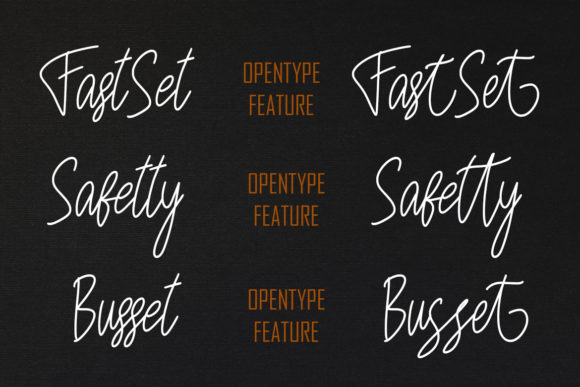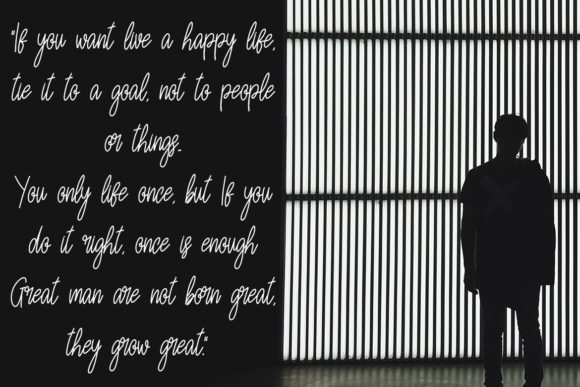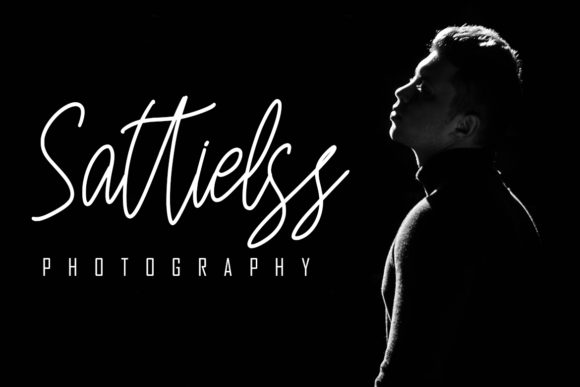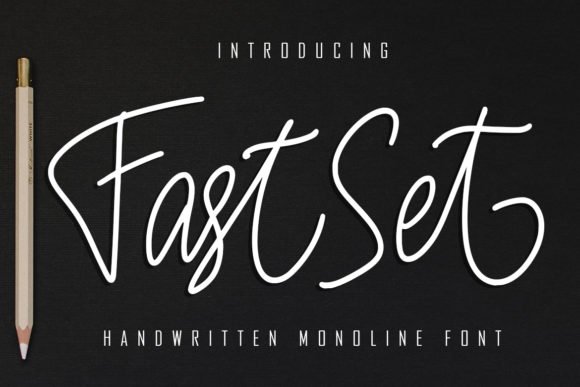
Introduction to Fast Set Font
Fast Set simplifies elegance into one truly outstanding handwritten font.
It maintains its classy calligraphic influences while feeling contemporary and fresh Fast Set is the perfect font for making original and outstanding designs.
Key Features of Fast Set Font
Why Choose Fast Set Font?
Fast Set Font offers exceptional quality and versatility, making it a valuable addition to your design toolkit. Whether you’re creating for personal projects or commercial use, Fast Set Font delivers professional results.